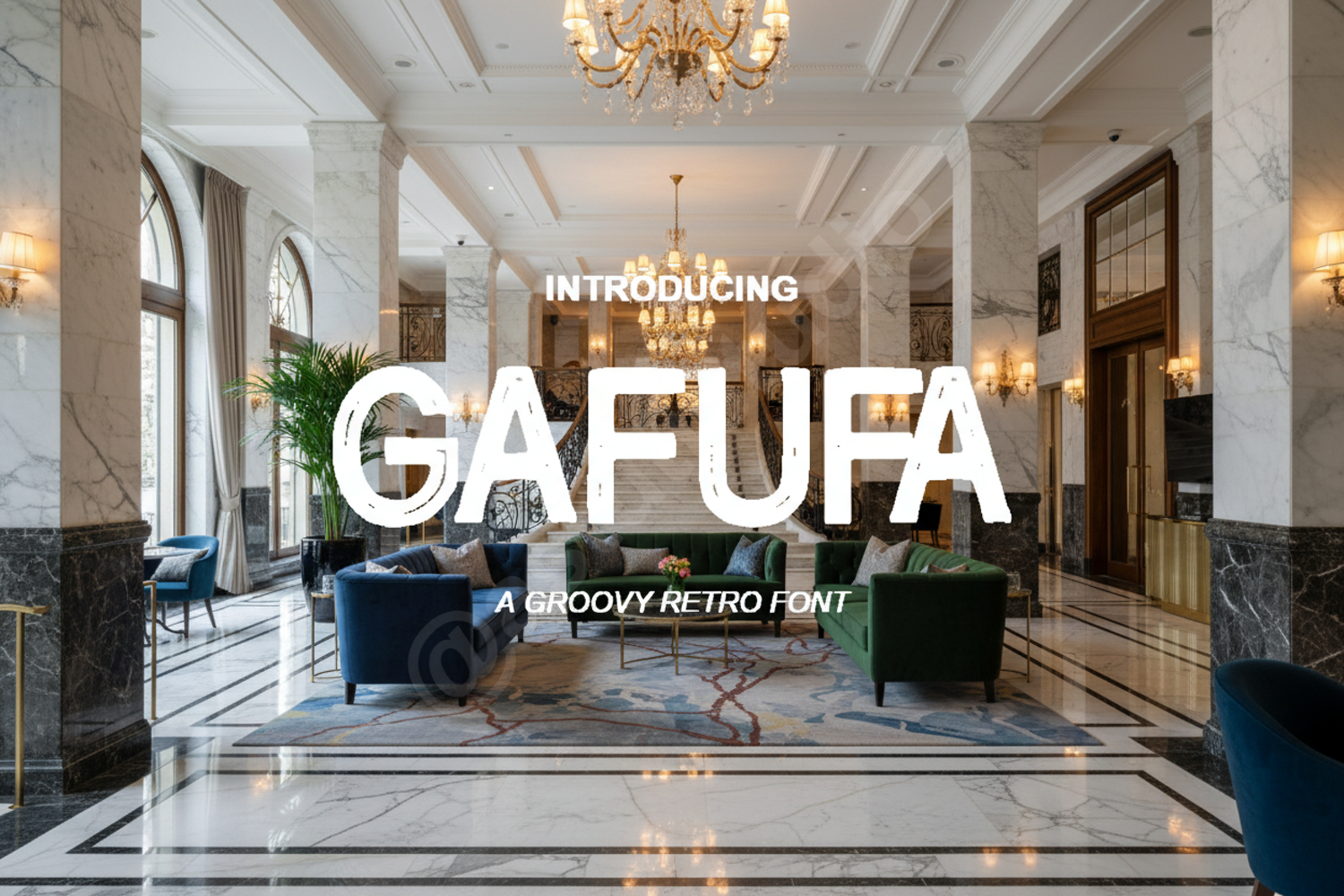
Gafufa - Modern Geometric Sans Serif Typeface
Gafufa
Introducing Gafufa, a premium typeface designed with precision and modern aesthetics in mind. Gafufa balances geometric clarity with a unique character, making it a standout choice for designers seeking a versatile and professional look. Whether you are working on a high-end corporate identity or a creative editorial layout, this font provides the legibility and style required for top-tier projects.
- Professional Branding and Logo Design
- Editorial Layouts and Magazine Spreads
- Modern Website Headers and UI Design
- Social Media Graphics and Marketing Materials
- Premium Packaging and Product Labeling